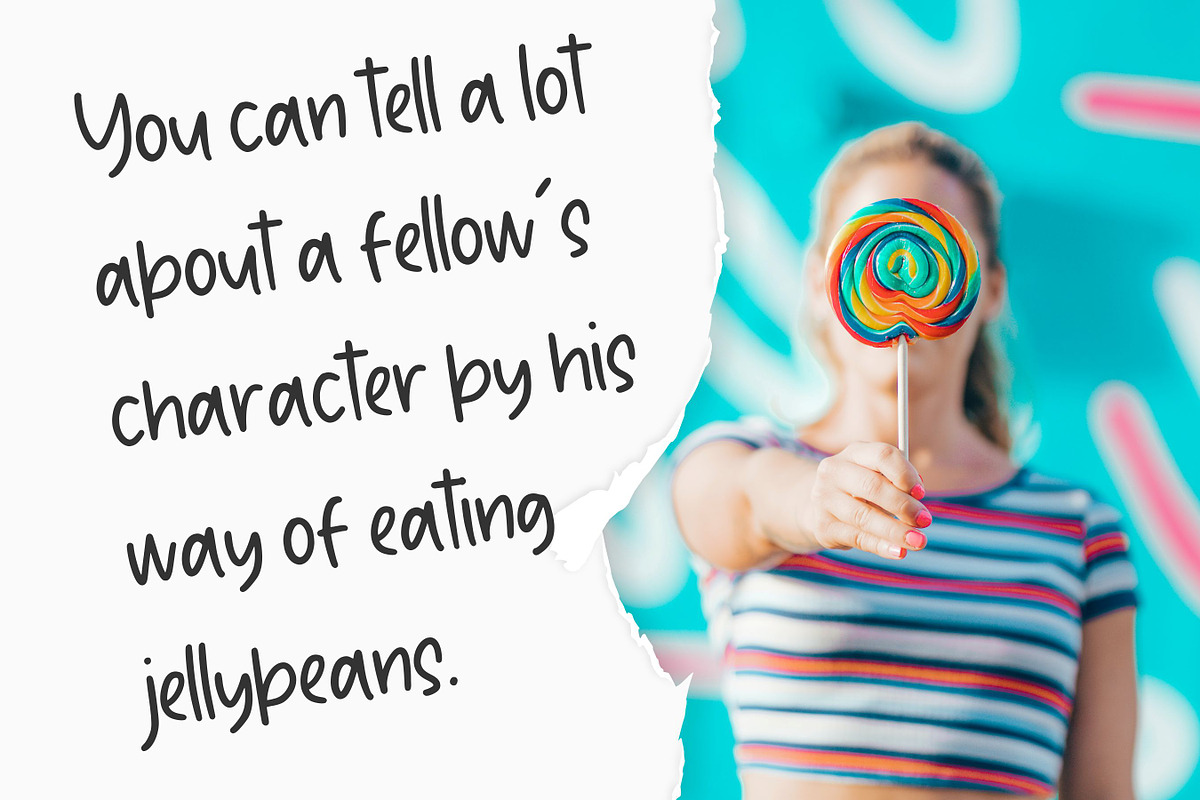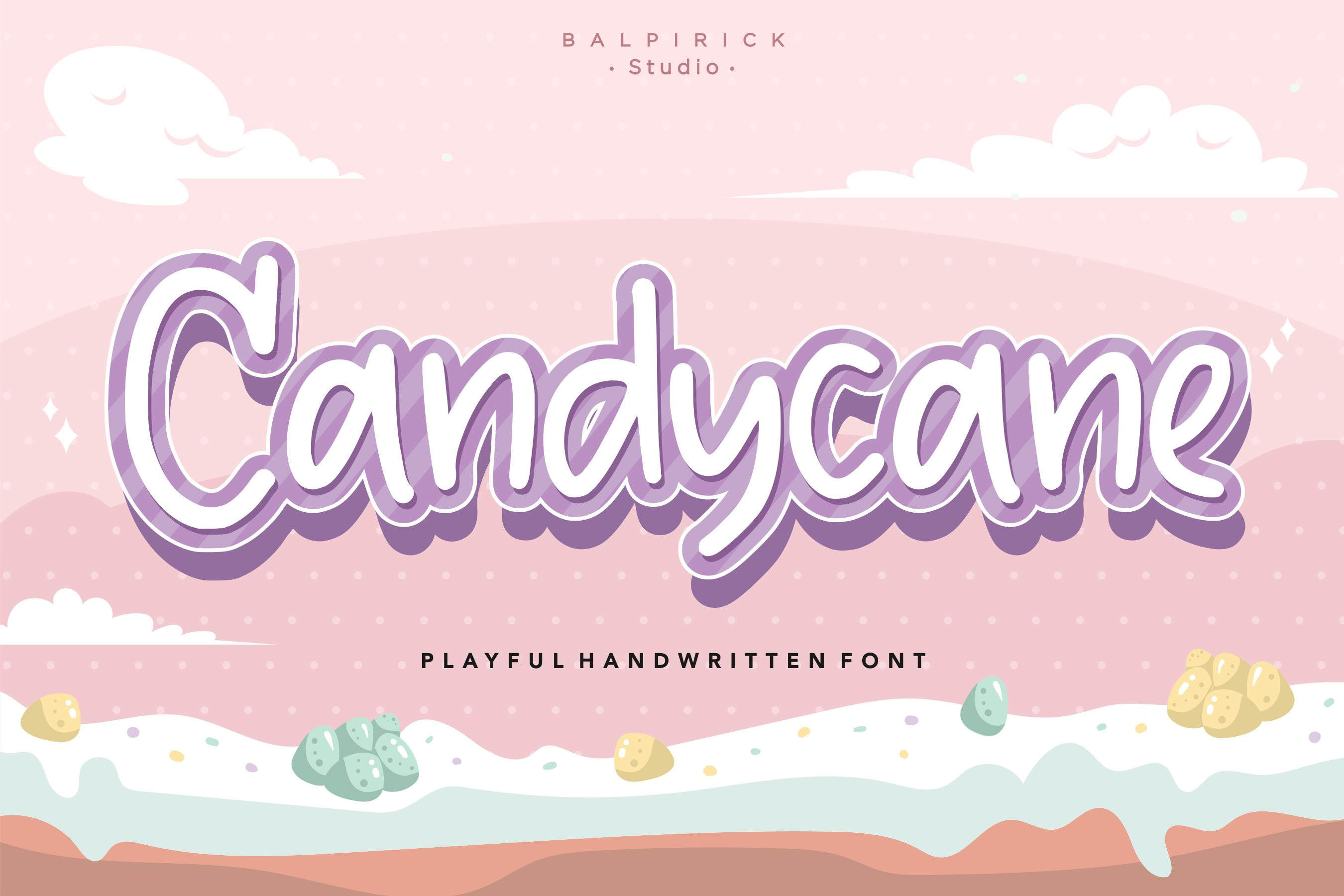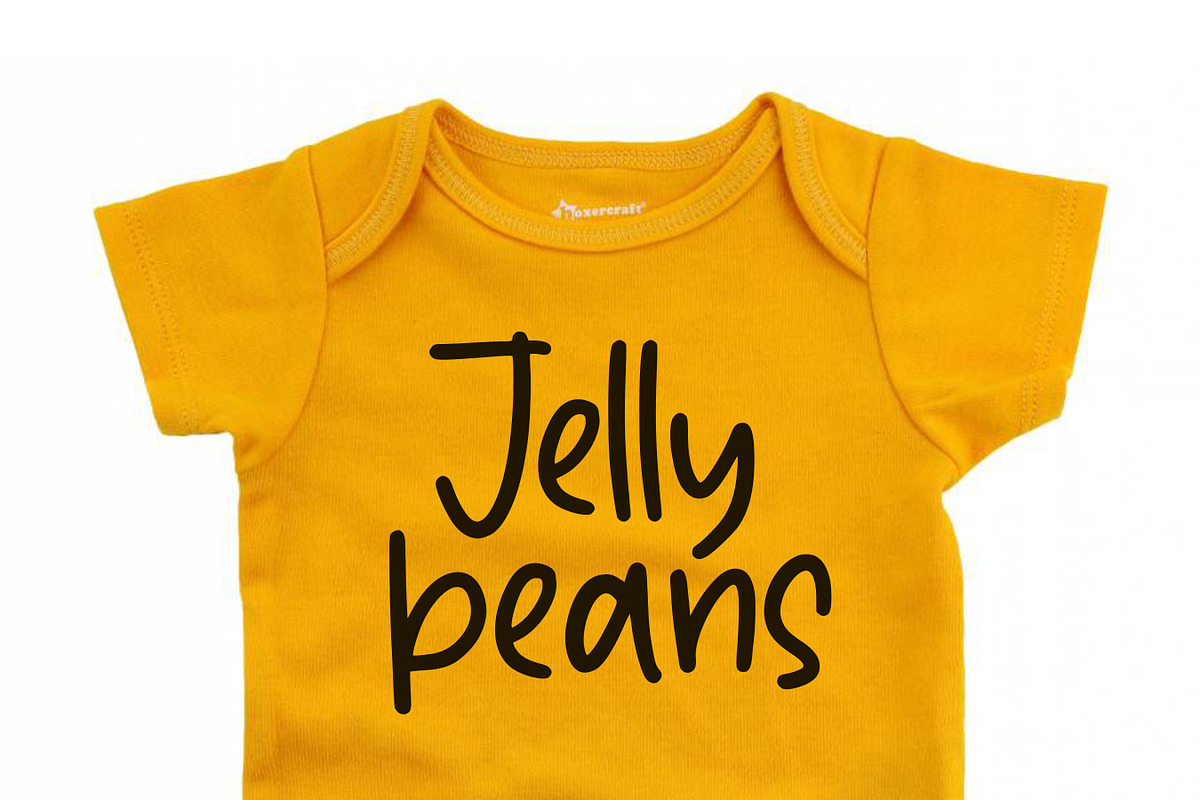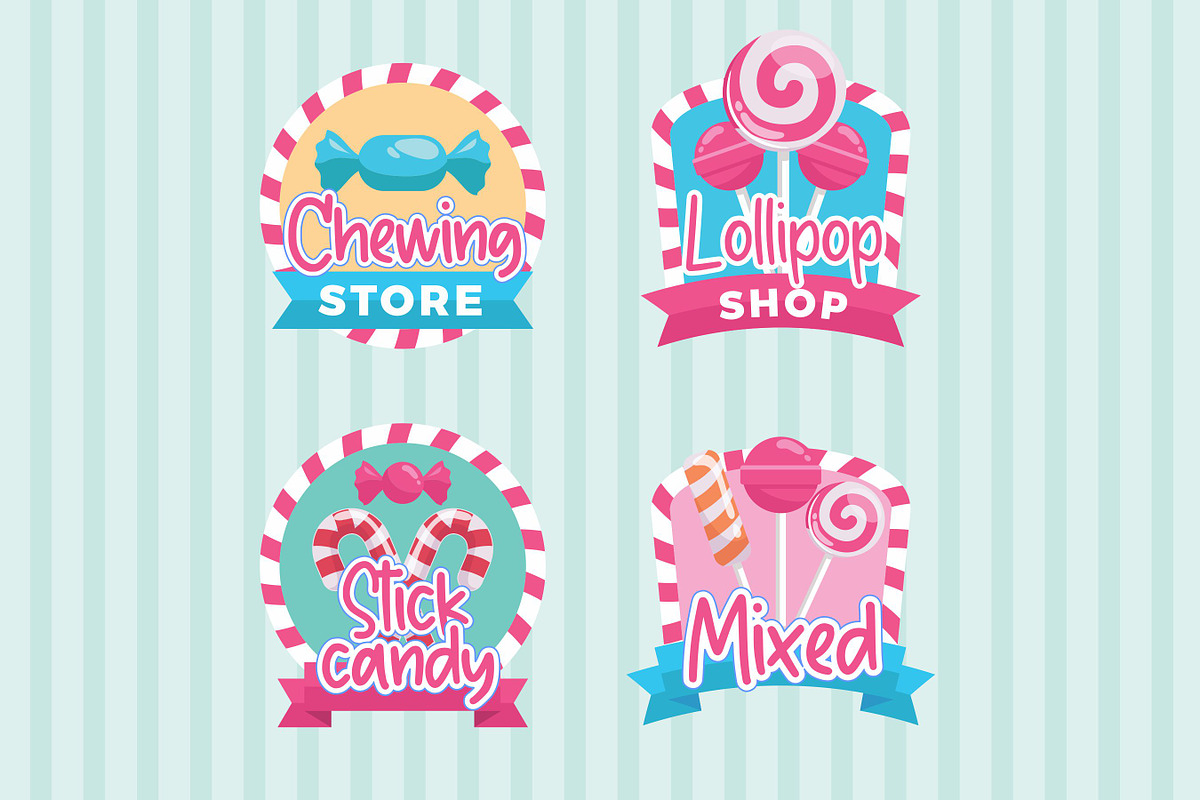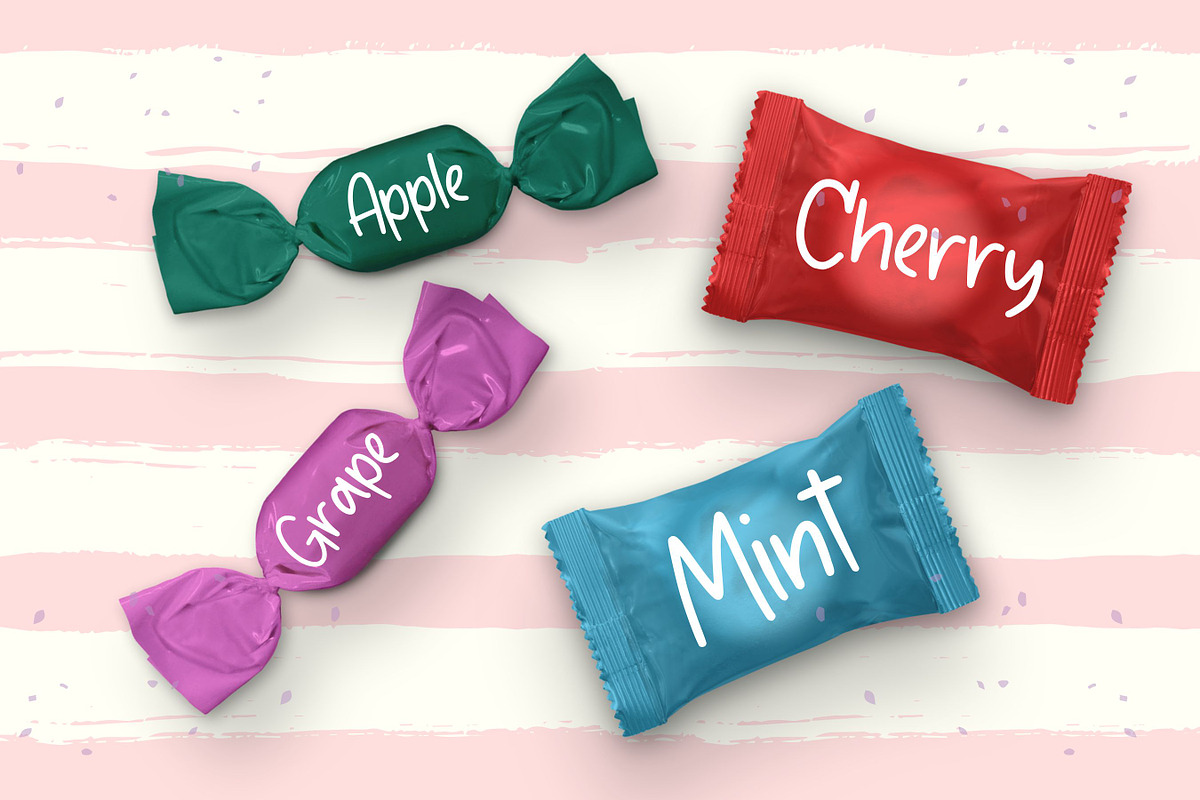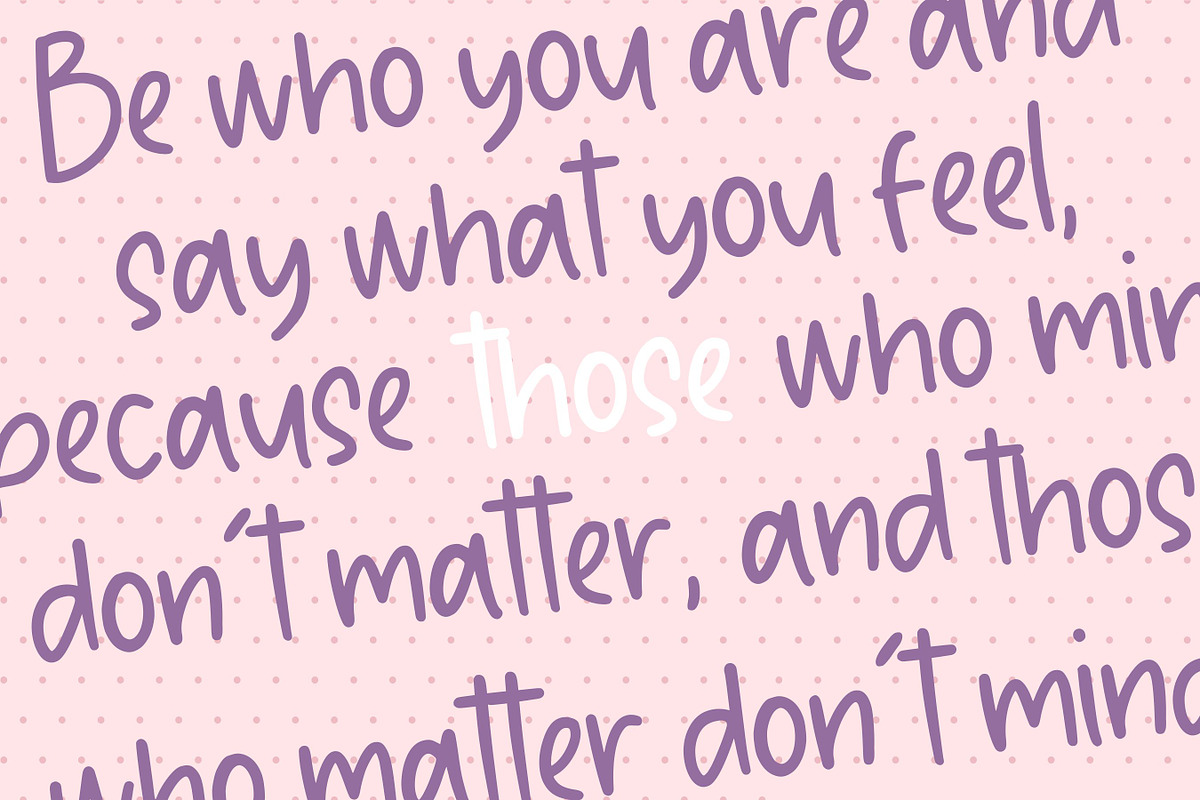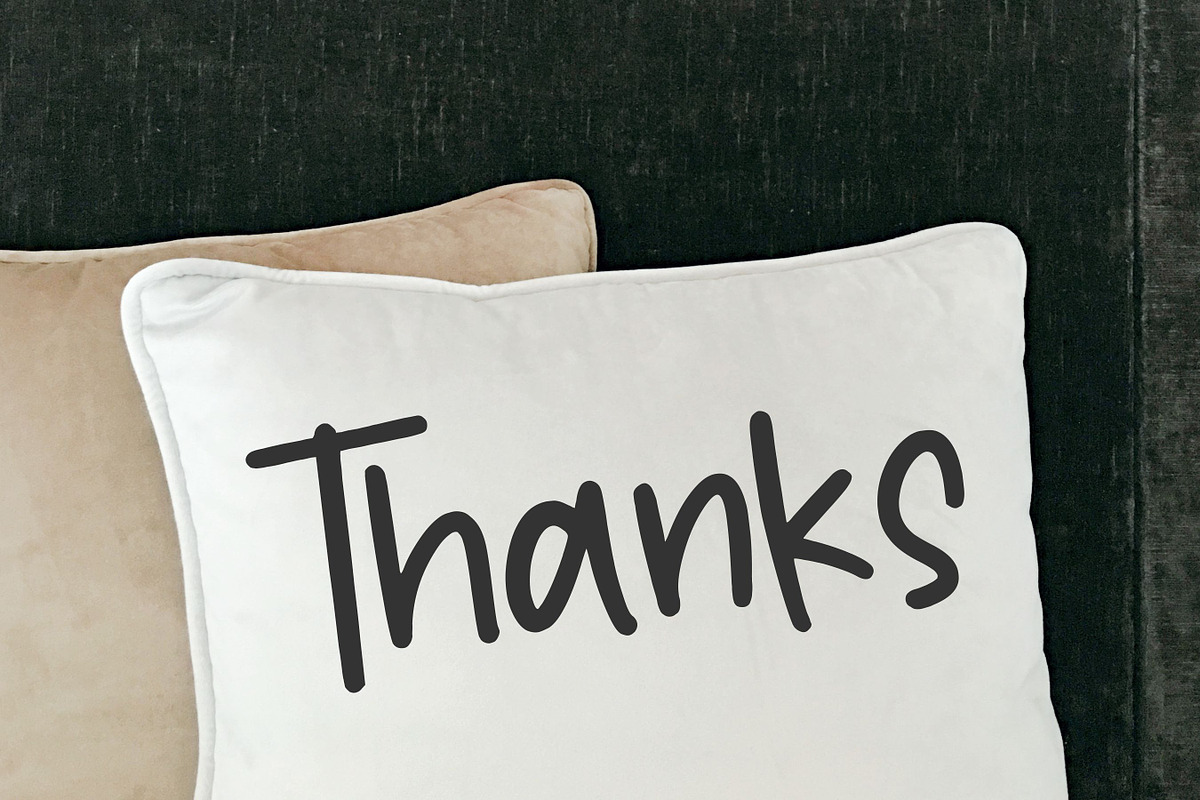
Candycane - Playful Handwritten Font
Proudly Present, Candycane Font
Candycane is a cute and casual handwritten font with an incredibly friendly feel. Whether you’re looking for fonts for Instagram or calligraphy scripts for DIY projects, this font will turn any creative idea into a true piece of art!